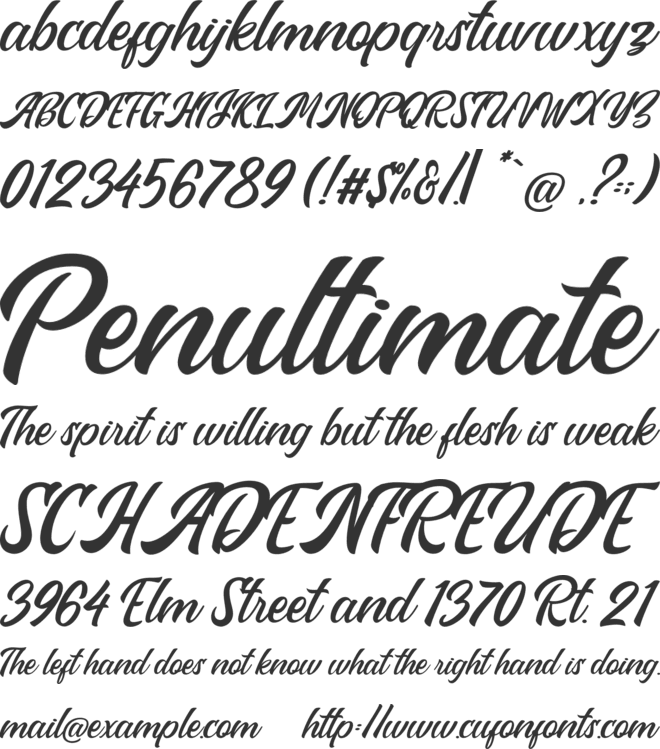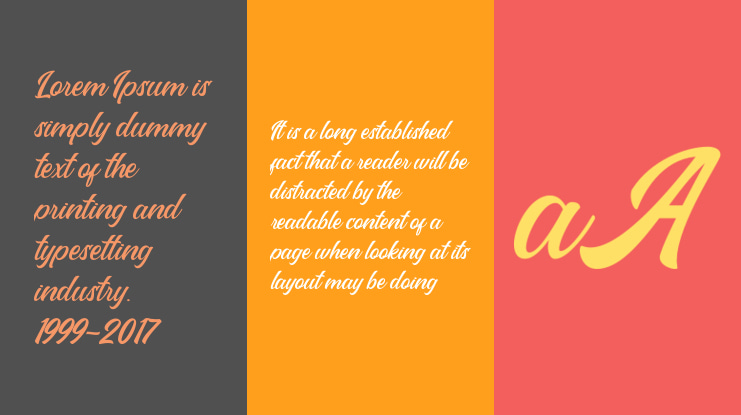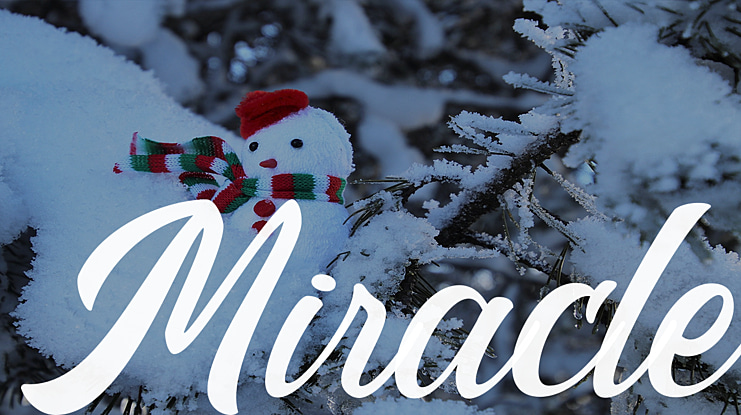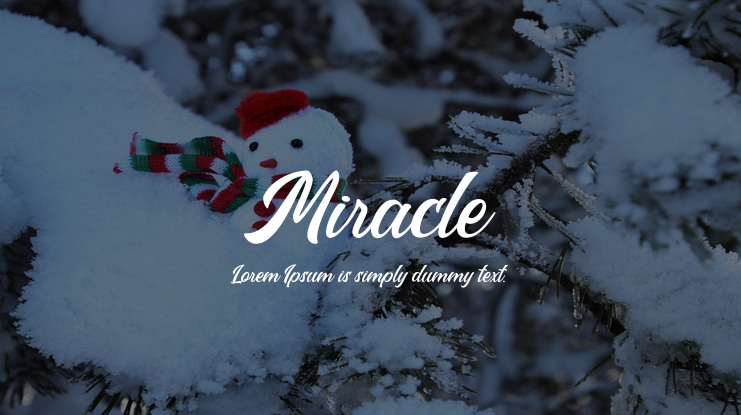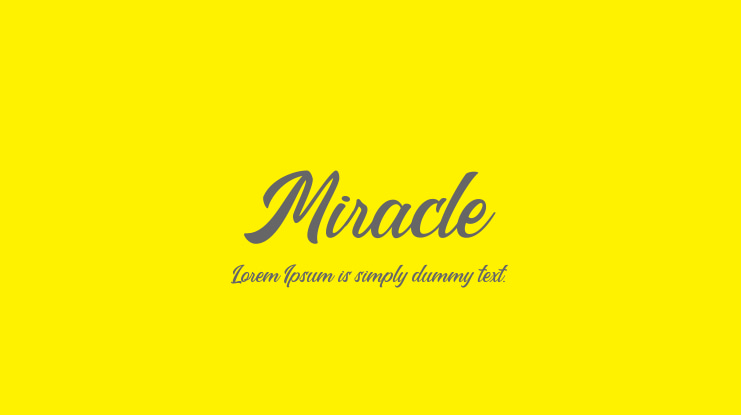
Miracle Font
Hello: i want to introduce Miracle Script.
Miracle Script is modern logo type . This font will be suitable for t-shirt printing, namecard design, branding projects, product packaging,quotes, logo's, book covers, and all your other lovely projects. Miracle Script will powerfull for your design because it featured with extruded font.